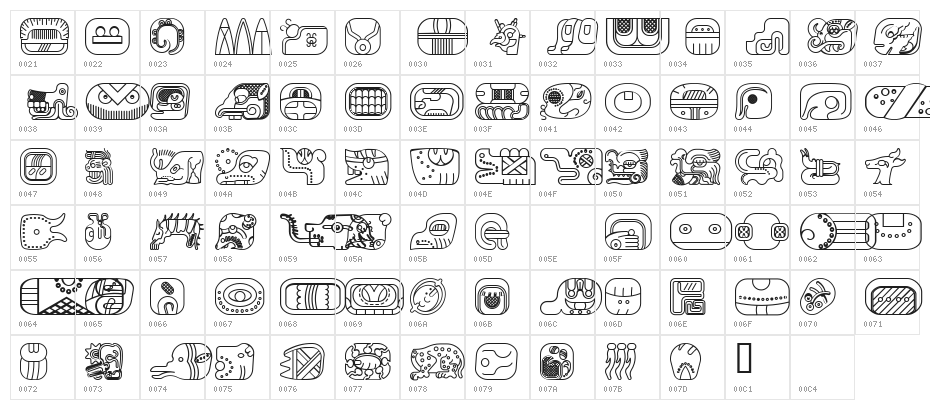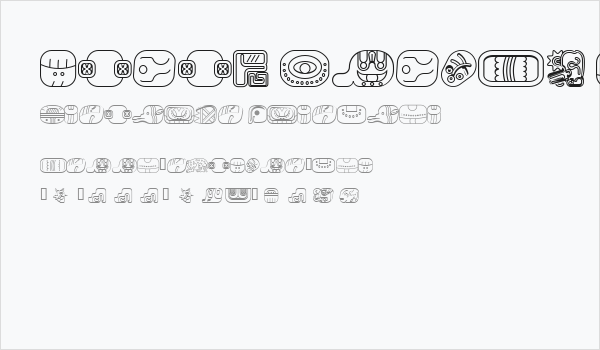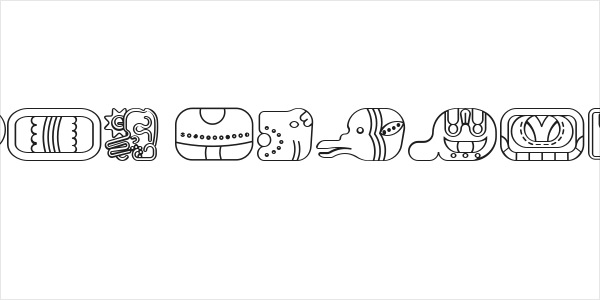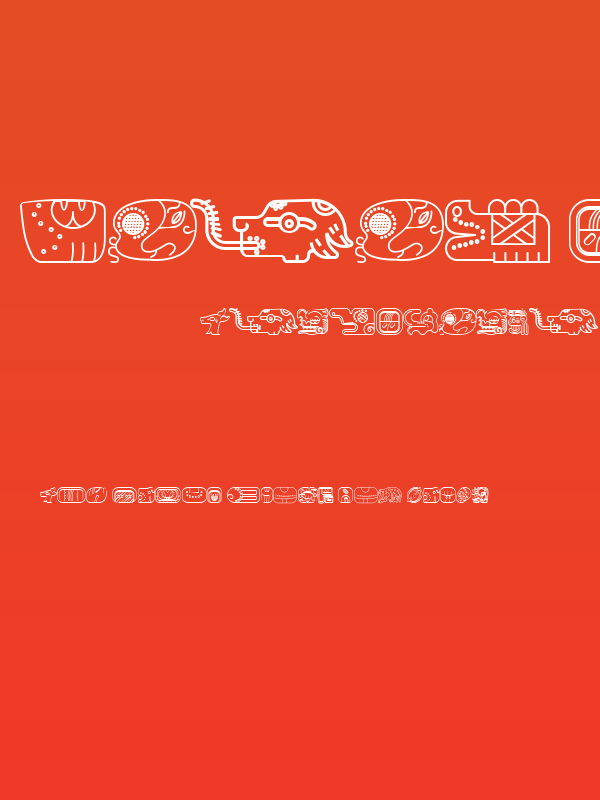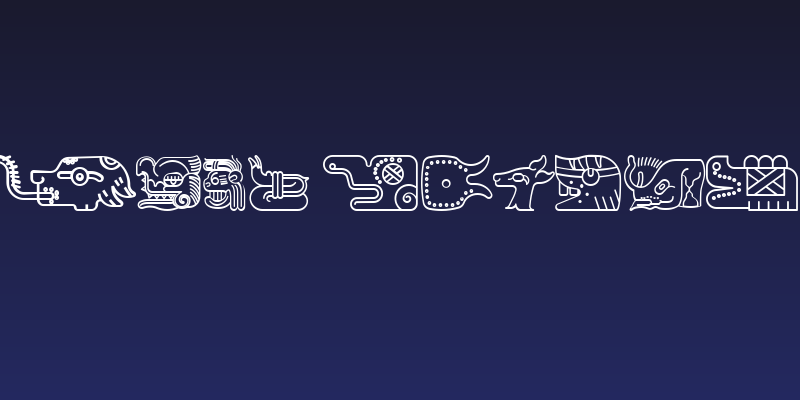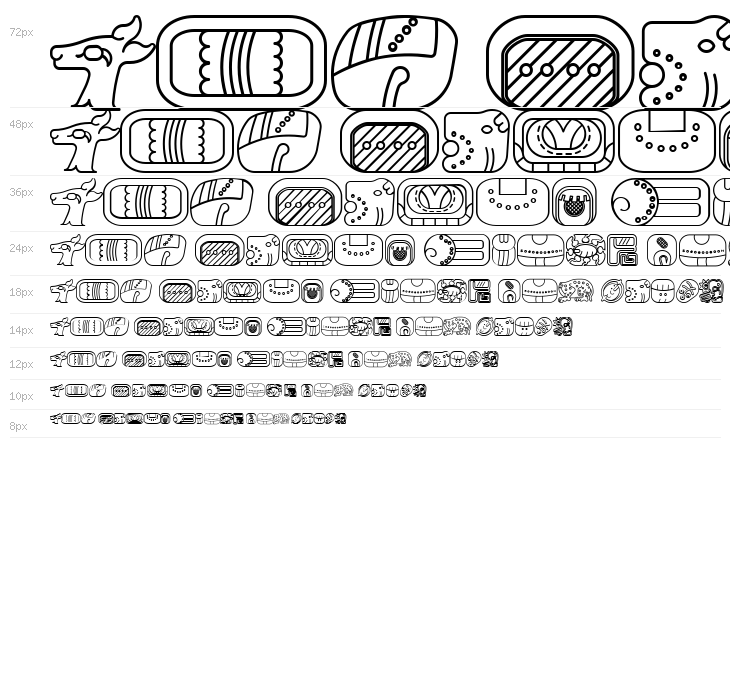
mayan glyphs outline Regular Font
mayan glyphs outline Regular Description
This font features intricate and detailed glyphs inspired by ancient Mayan art. Each character is a unique representation, resembling traditional Mayan symbols and figures, with a focus on geometric patterns and organic shapes. The outlines are bold and clear, making each glyph stand out distinctly. The design is highly decorative, capturing the essence of historical Mayan aesthetics with a modern twist. The characters are not standard alphanumeric symbols but rather artistic representations, making this font ideal for creative and thematic projects.
| Use Case | Logos, Decorative designs, Themed artwork |
| Proposed Projects | Ideal for cultural projects, themed artwork, educational materials on ancient civilizations, and decorative designs. |